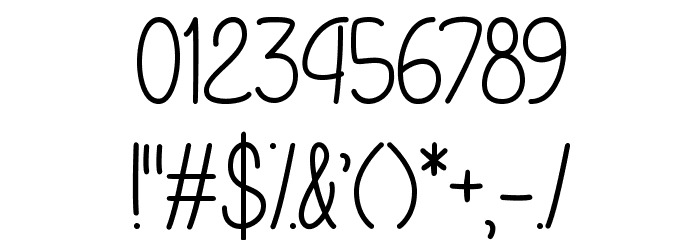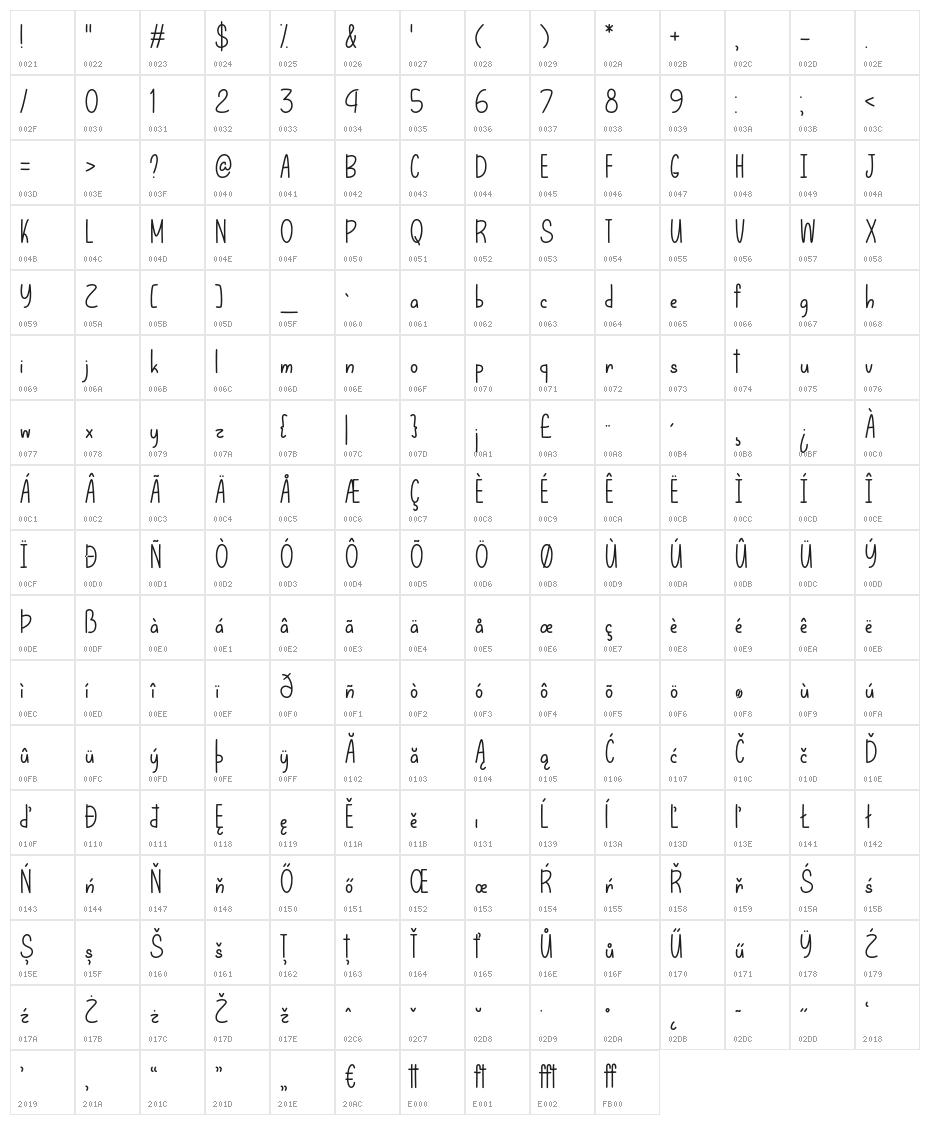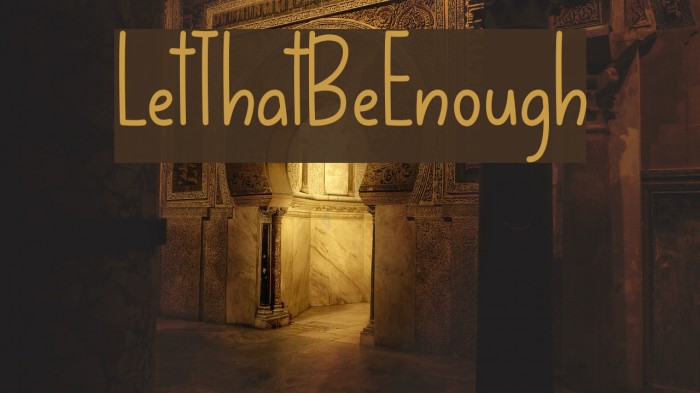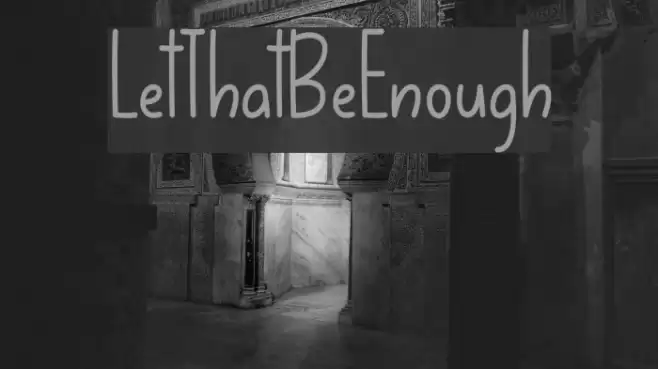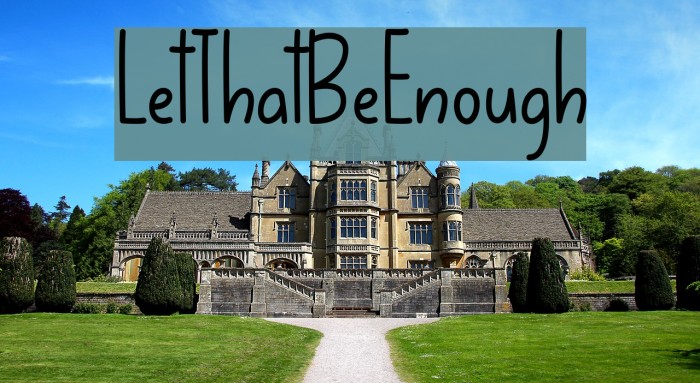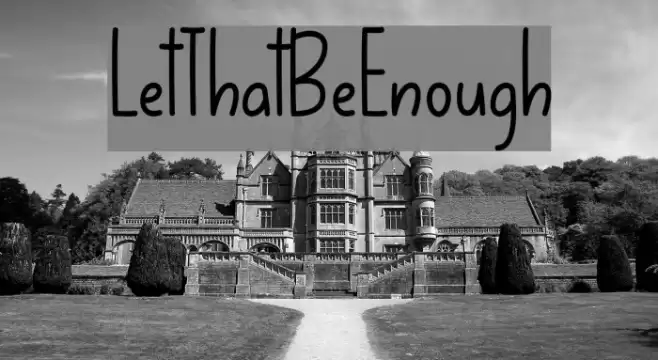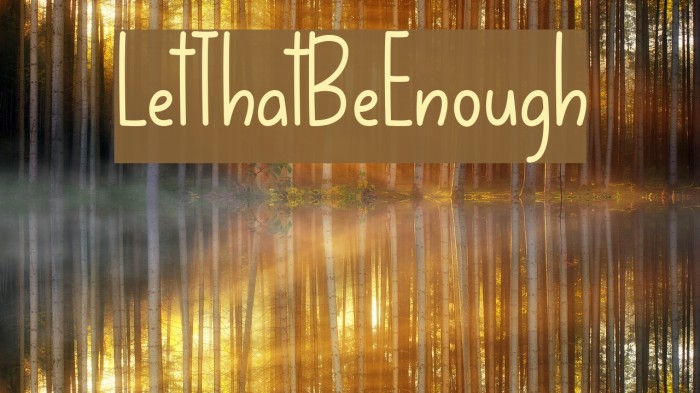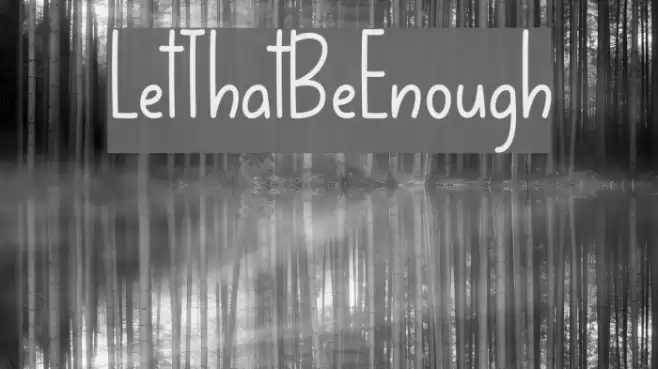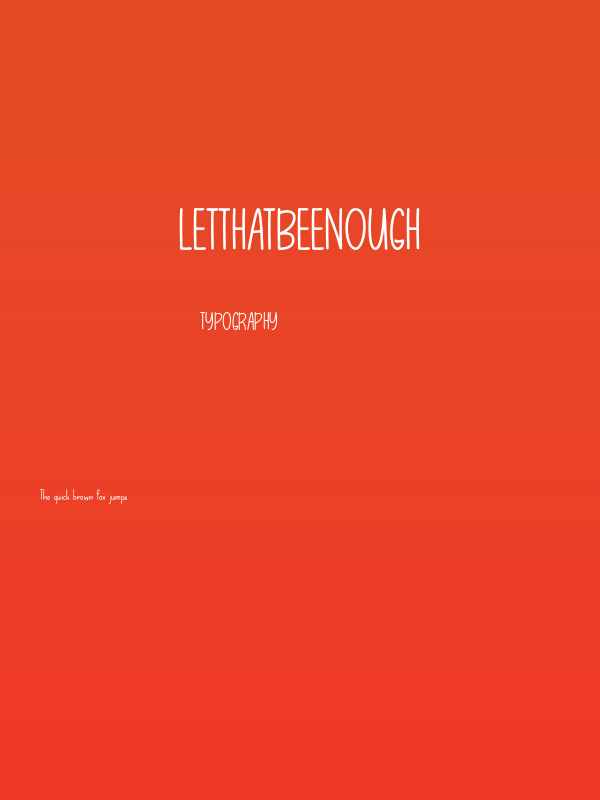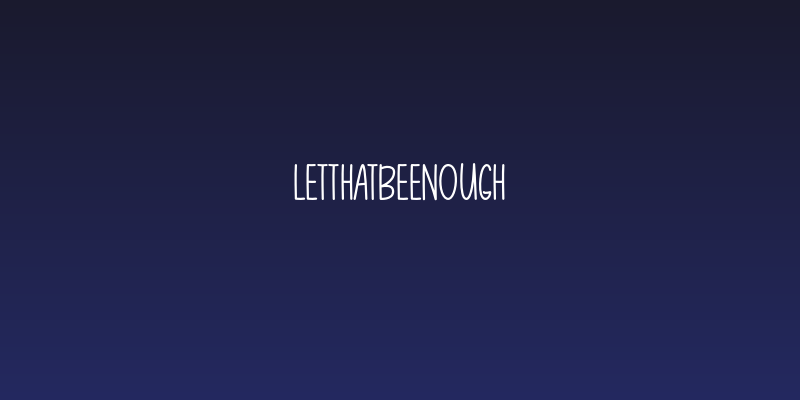
LetThatBeEnough Font
LetThatBeEnough Description
This playful and whimsical font features tall, narrow letters with a hand-drawn aesthetic. The uppercase characters are slightly taller than the lowercase, adding a sense of fun and informality. The strokes are consistent in width, giving it a clean and approachable look. The rounded edges and slight slant of the characters contribute to its friendly and casual feel. The numerals and special characters maintain the same playful style, making it versatile for various uses. Overall, this font exudes a sense of creativity and lightheartedness, perfect for projects that require a personal touch.
| Overall Style | Whimsical |
| Use Case | Headlines, Logos, Creative projects |
| Proposed Projects | Ideal for children's books, greeting cards, playful branding, and creative posters. |